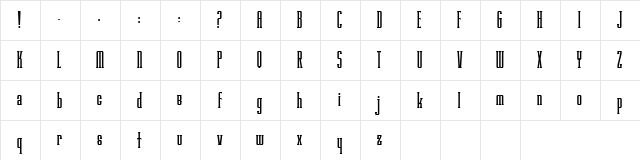
Grackle Plain
Design Context for Grackle Typeface
Grackle is a composed and adaptable typeface that performs quietly and consistently across a wide range of design contexts.